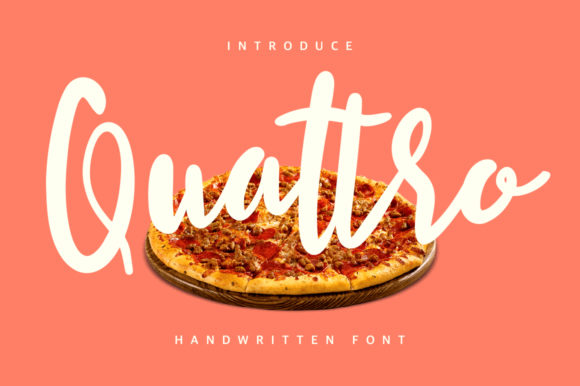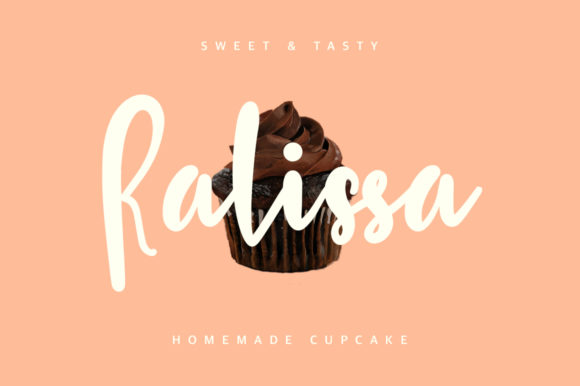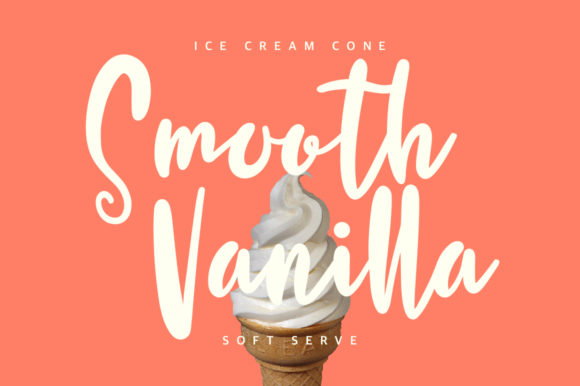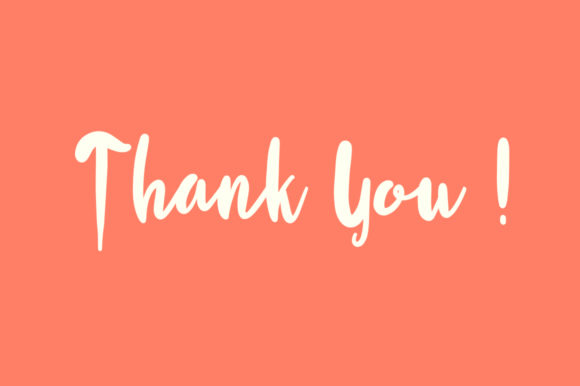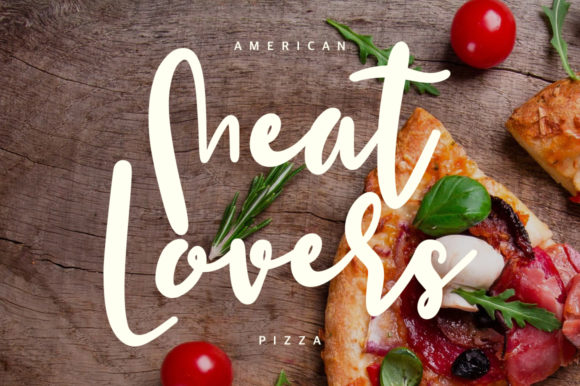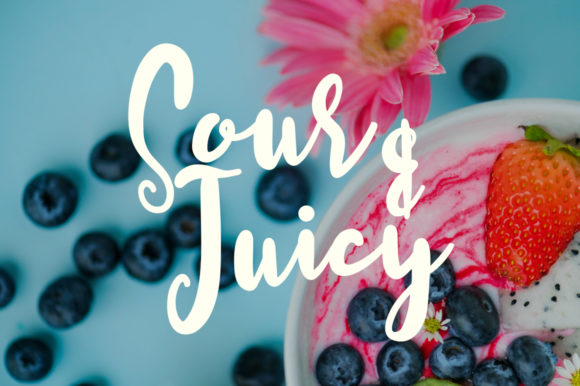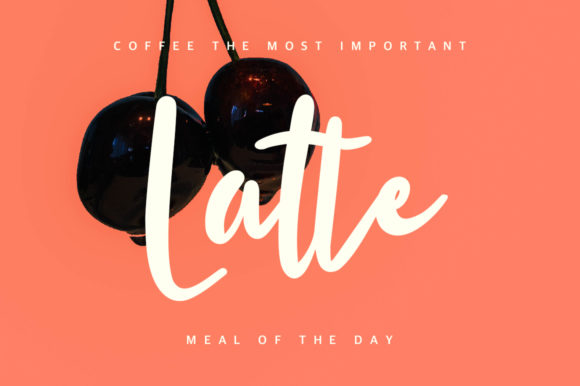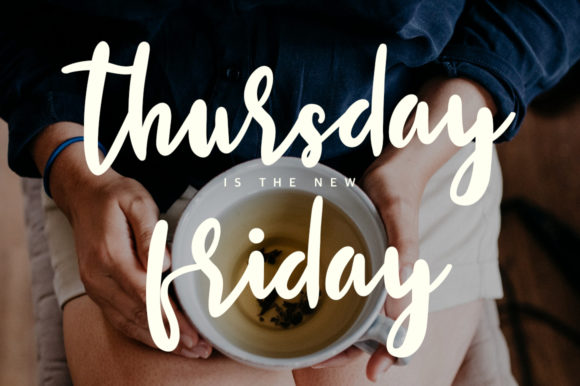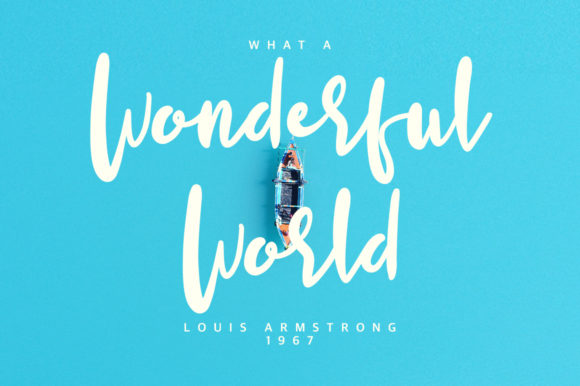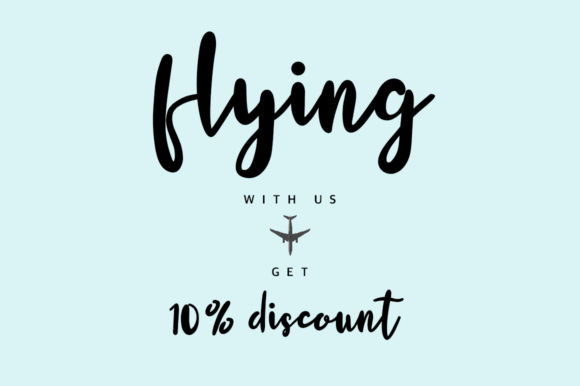
Quattro Font
About Quattro Font
Quattro is a fun and flowing handwritten font. Trendy and adept, this font is ideal for any informal design that you wish to develop!